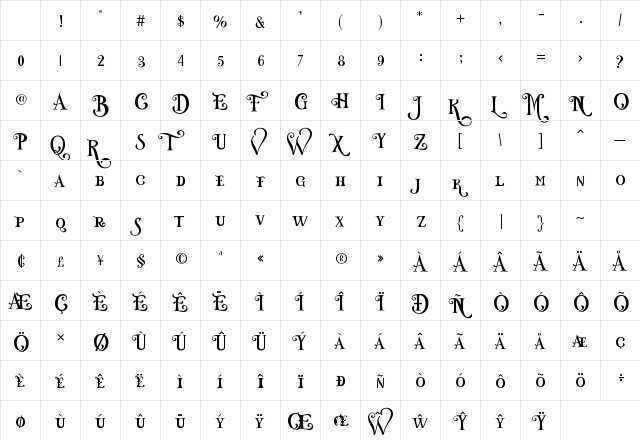
Complete Misteri Caps Regular glyph index. Displaying only characters natively supported by Misteri Caps Regular font.
Misteri Caps is a composed and adaptable typeface that performs quietly and consistently across a wide range of design contexts.